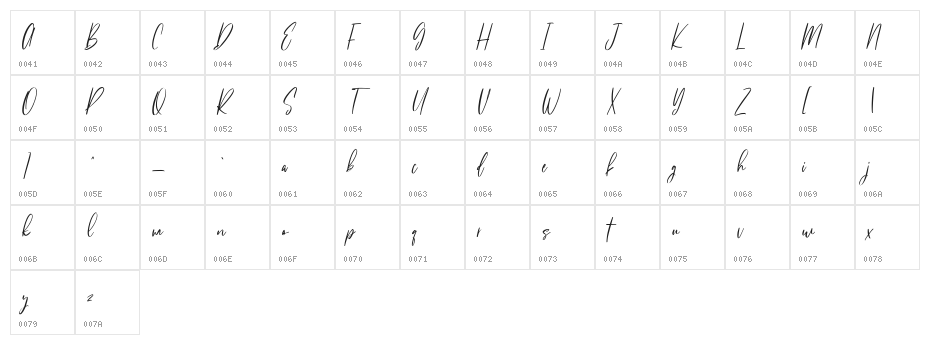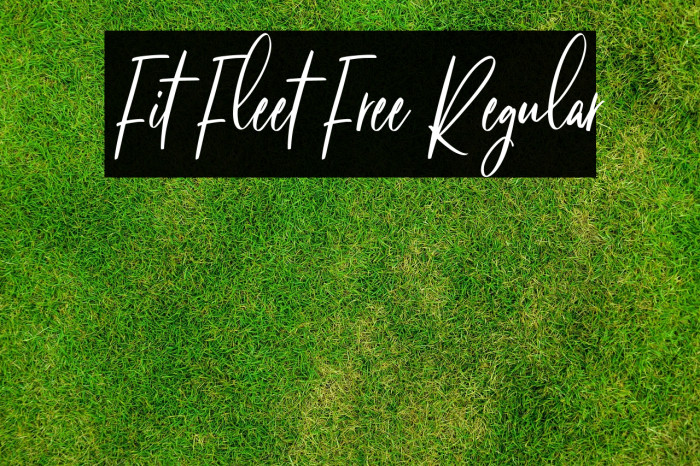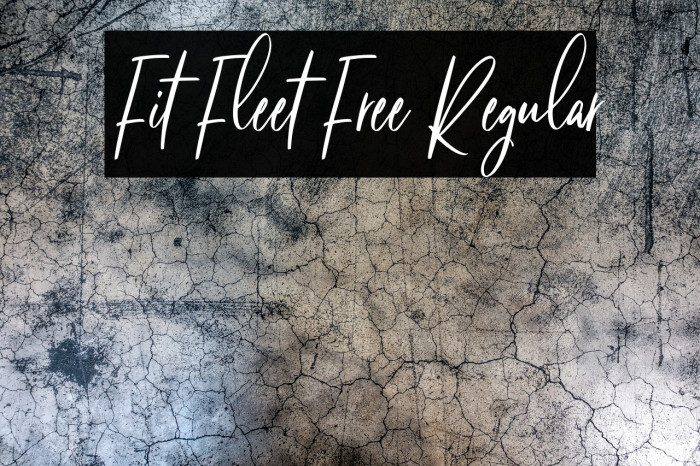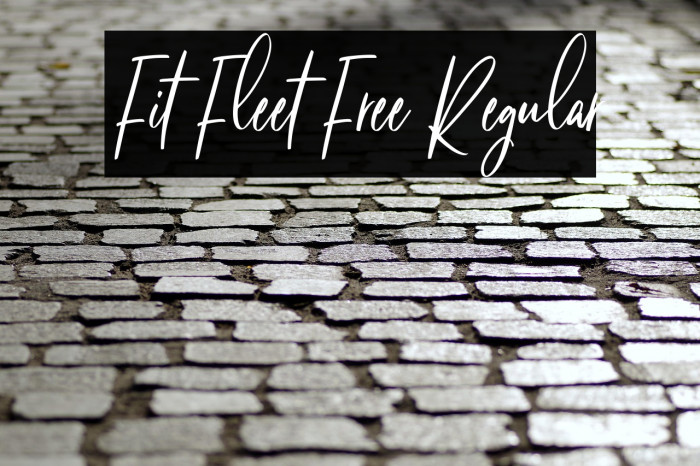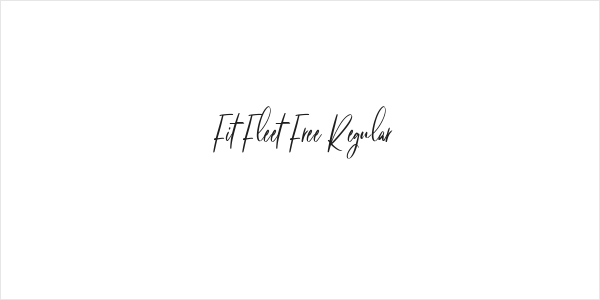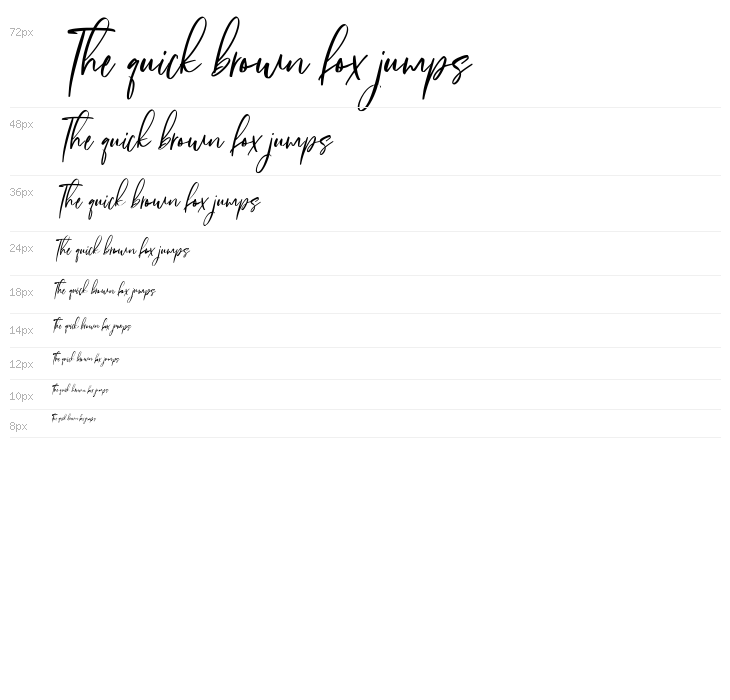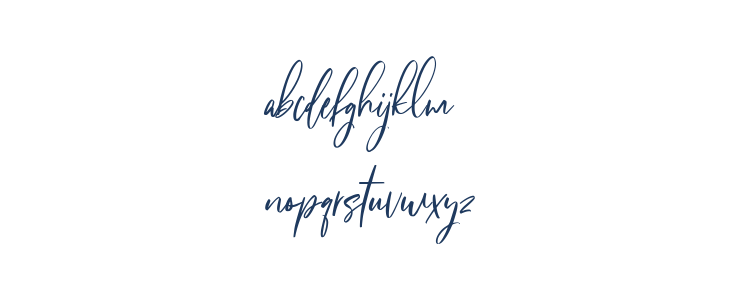
Fit Fleet Free Regular Font
Fit Fleet Free Regular Description
This font exudes a modern and stylish handwritten aesthetic, characterized by its fluid and elegant strokes. The letters are crafted with a natural flow, giving a sense of movement and grace. The uppercase letters are bold and slightly elongated, while the lowercase letters maintain a consistent and harmonious style. The font's overall appearance is both sophisticated and approachable, making it suitable for a variety of design projects. Its unique charm lies in the subtle variations in stroke width, which add a touch of dynamism and personality to the text.